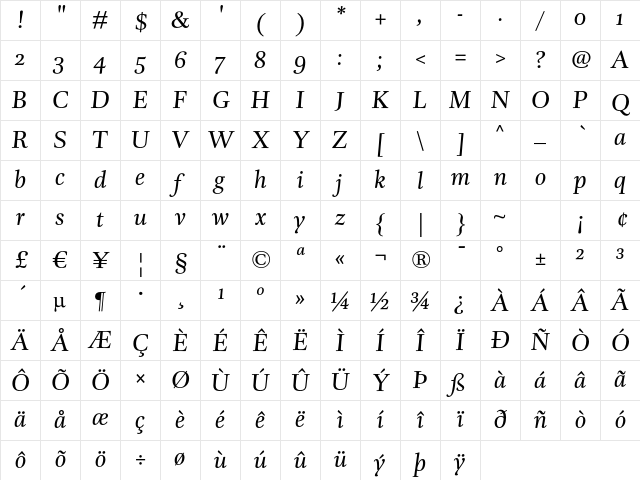
DTLUnicoST Italic
Foundry: Dutch Type Library
Designer: Michael Harvey
Design Context for DTLUnicoST
DTLUnicoST is a composed and adaptable typeface that performs quietly and consistently across a wide range of design contexts. The slanted form adds forward momentum and visual energy.
Pro Tip: Use DTLUnicoST for emphasis, pull quotes, and subheadings where its slanted energy can add rhythm to the layout.
Who designed the DTLUnicoST Italic font?